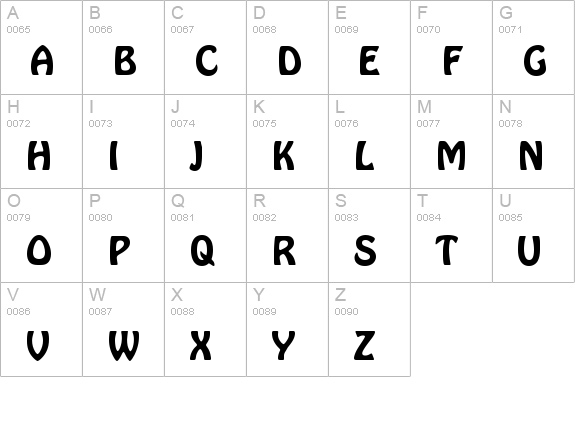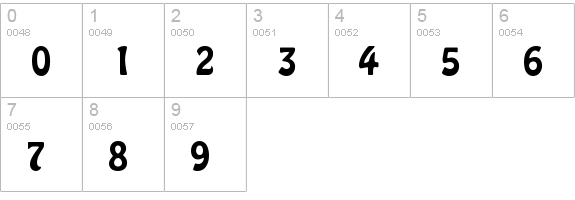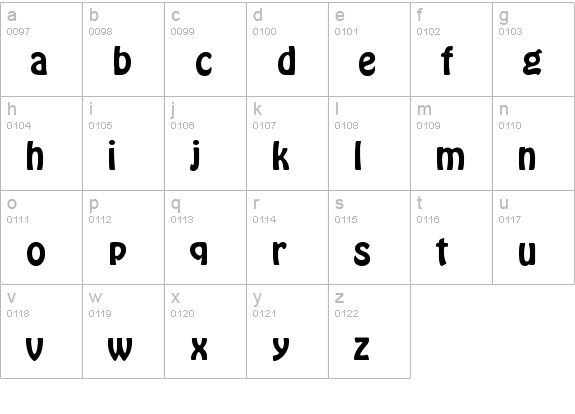
Hobo Medium ATT Font Details
Hobo Medium ATT is a balanced, medium-weight variant in the Hobo typeface family \xE2\x80\x94 well suited to sub-headlines, navigation, and balanced editorial work.
Hobo Medium ATT is a versatile and quirky font that exudes a sense of individuality and creativity. Its medium weight strikes the perfect balance between boldness and elegance, making it suitable for a wide range of design projects. The unique letterforms of Hobo Medium ATT add a touch of playfulness to any text, making it stand out from the crowd. Best of all, Hobo Medium ATT is completely free to download at FontsMarket.com. This means you can easily access this charming font for all your creative endeavors without any cost. Whether you're working on a poster, logo, branding project, or any other design, Hobo Medium ATT is sure to add a touch of personality and flair. Download it today and let your creativity run wild with this fantastic free font!